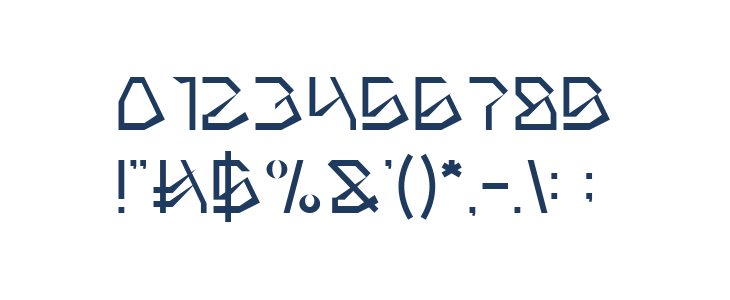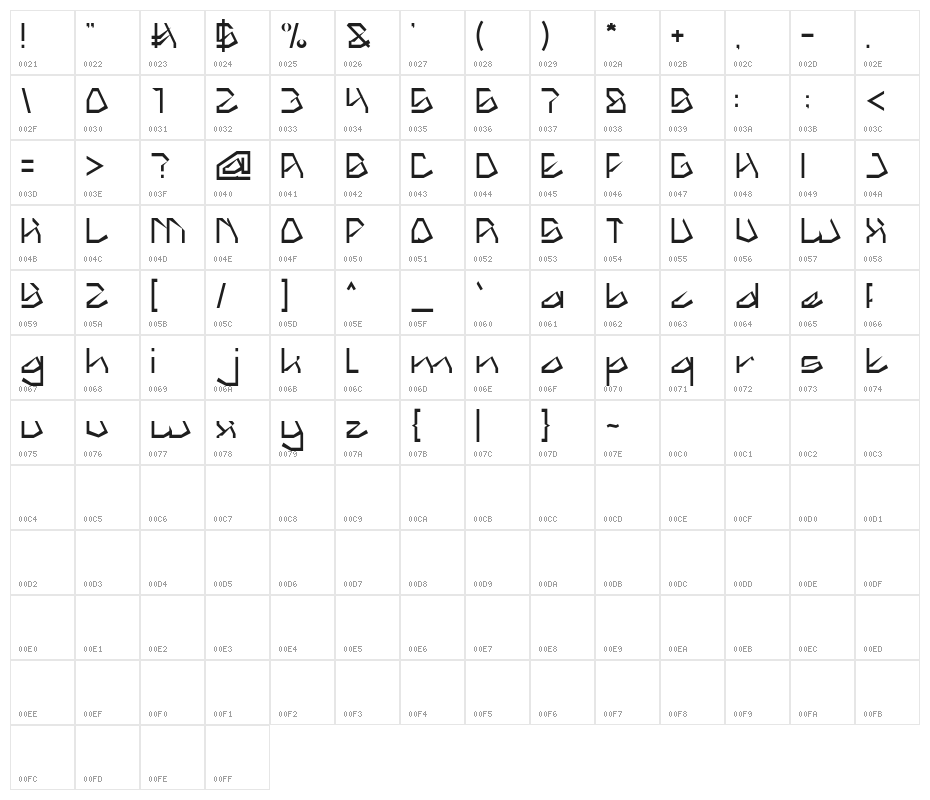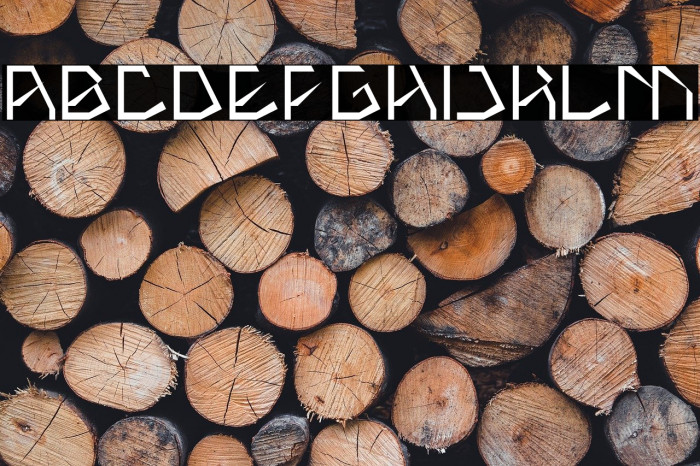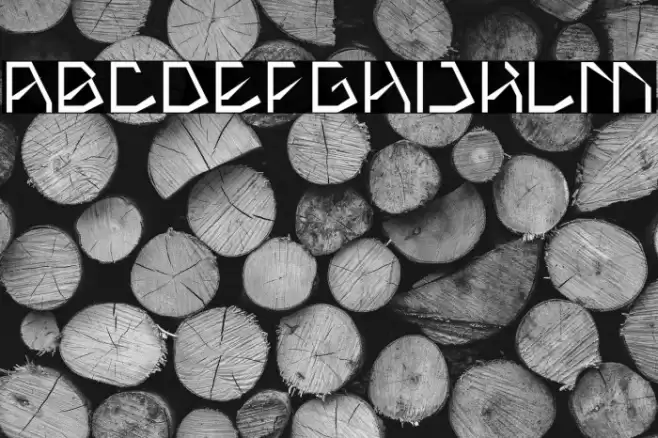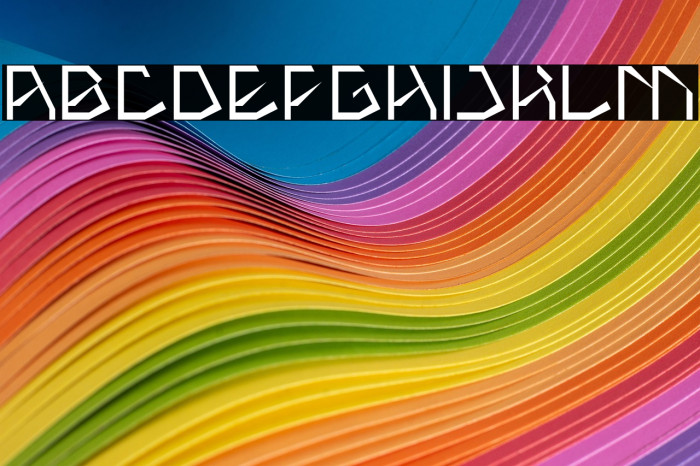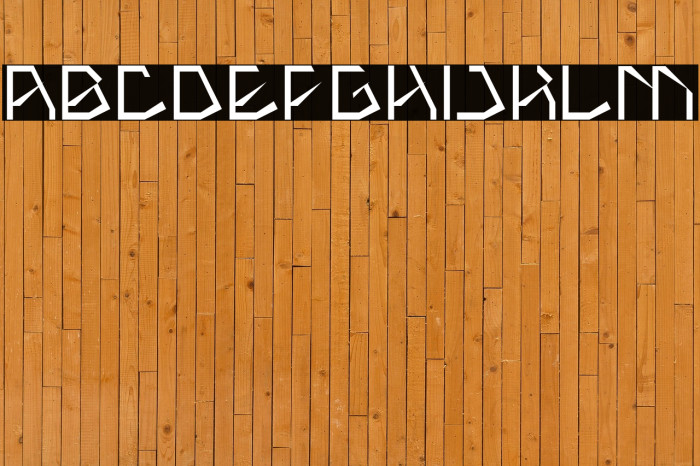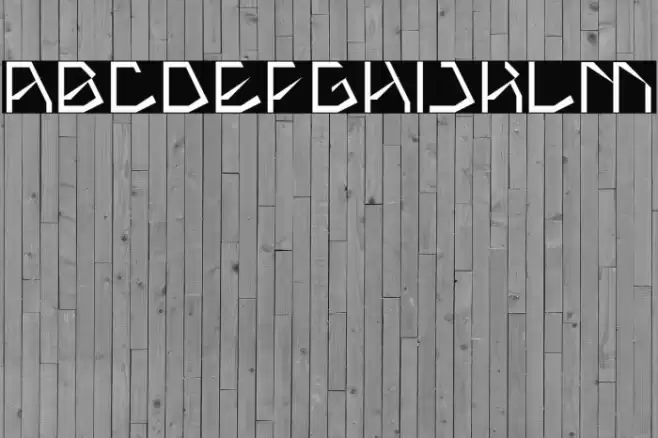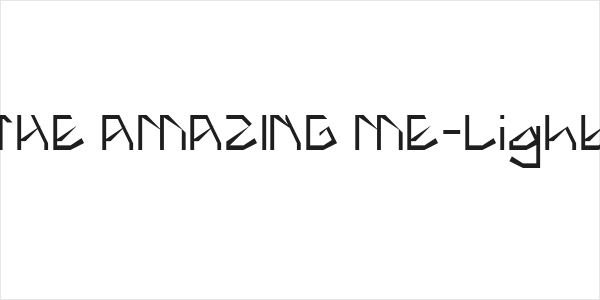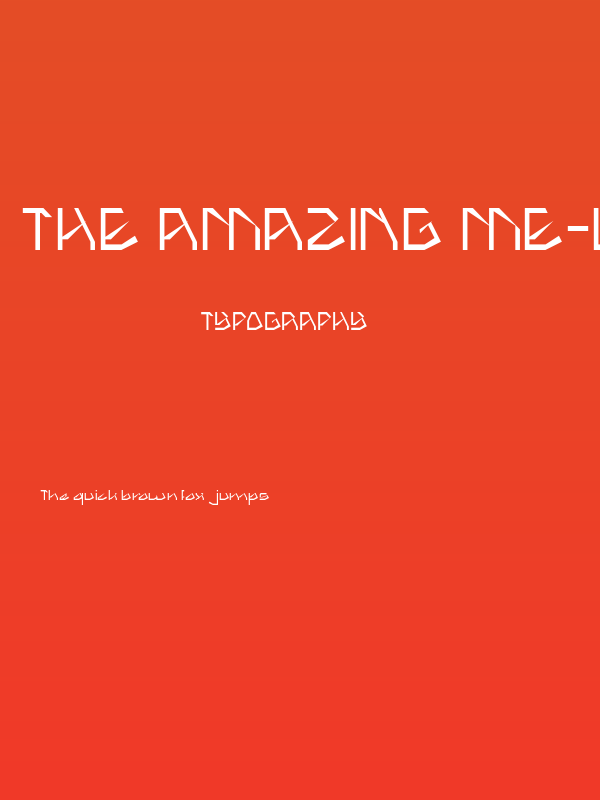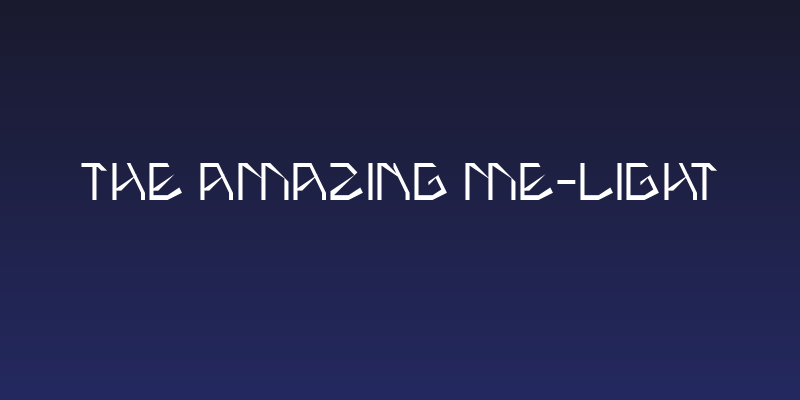
THE AMAZING ME-Light Font
THE AMAZING ME-Light Description
This font features a geometric and angular design, characterized by sharp edges and a futuristic aesthetic. The uppercase and lowercase letters maintain a consistent angular theme, giving it a unique and modern appearance. The numbers and special characters are designed to match the angular style, ensuring a cohesive look across all characters. The font's distinct style makes it stand out, with each character having a bold presence due to the thick strokes and sharp angles. This design is ideal for projects that require a modern and edgy look, such as tech-related branding or contemporary art pieces.
| Proposed Projects | Ideal for tech branding, modern art projects, futuristic designs, and edgy advertising campaigns. |